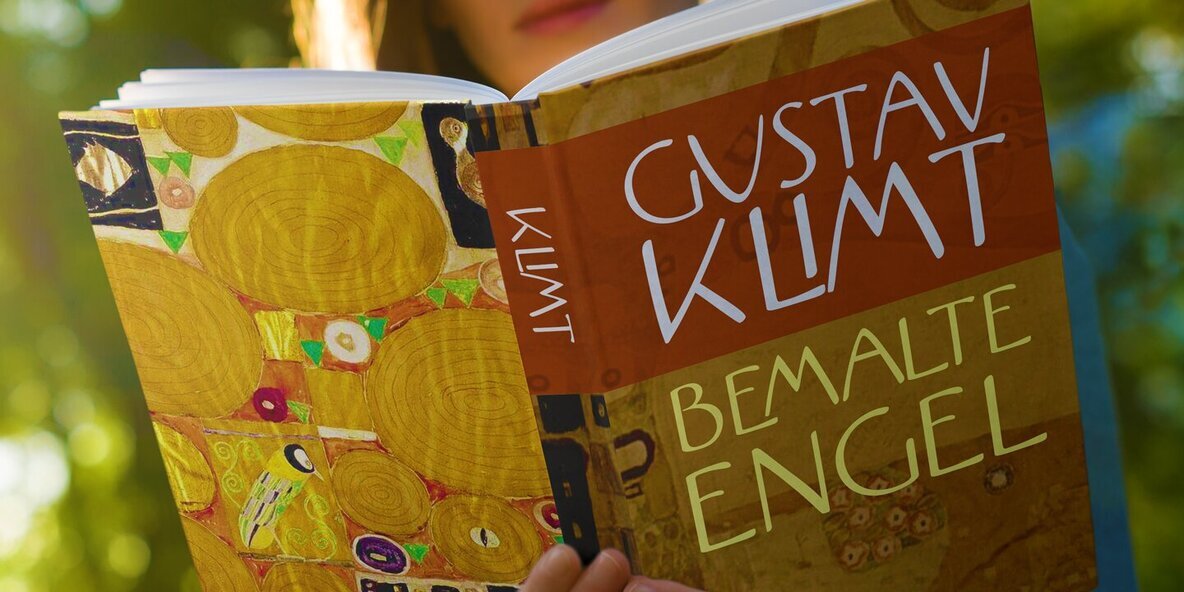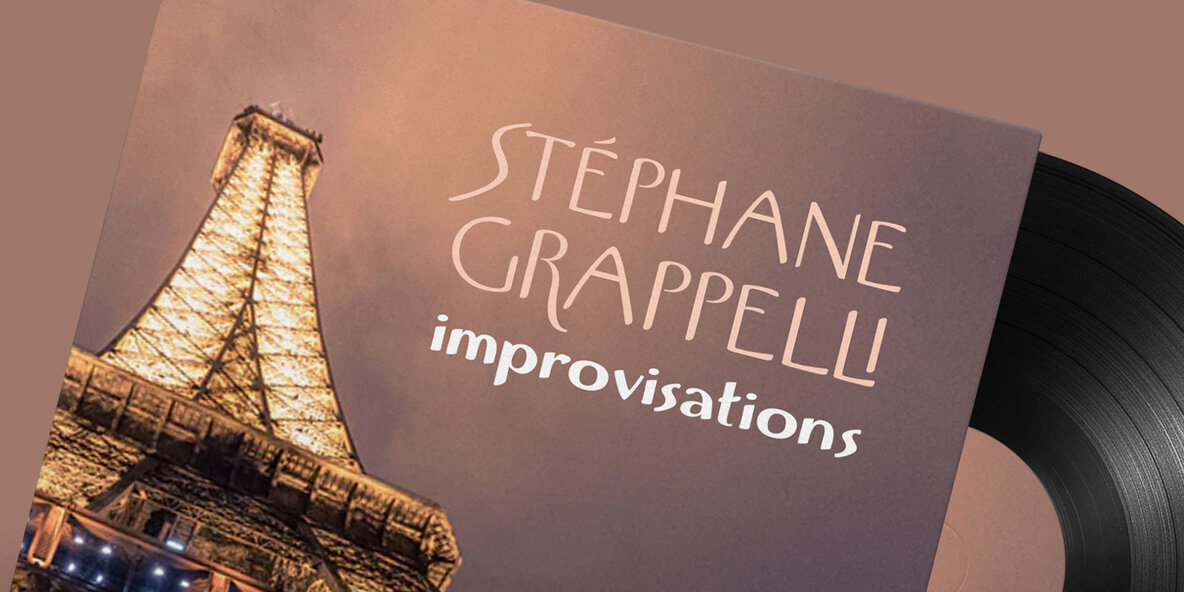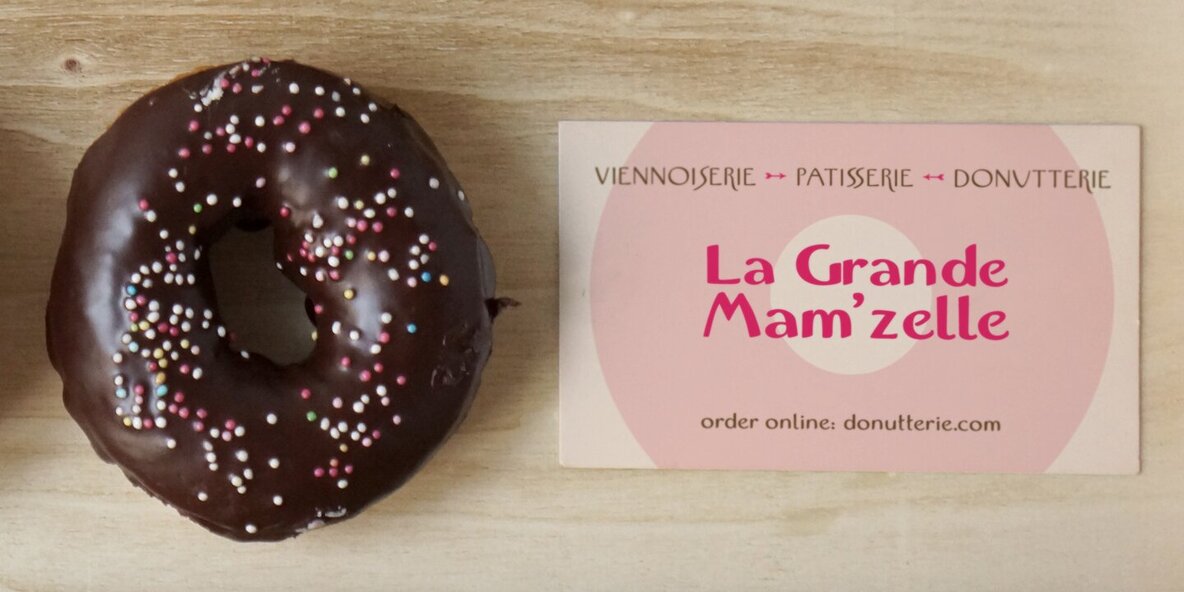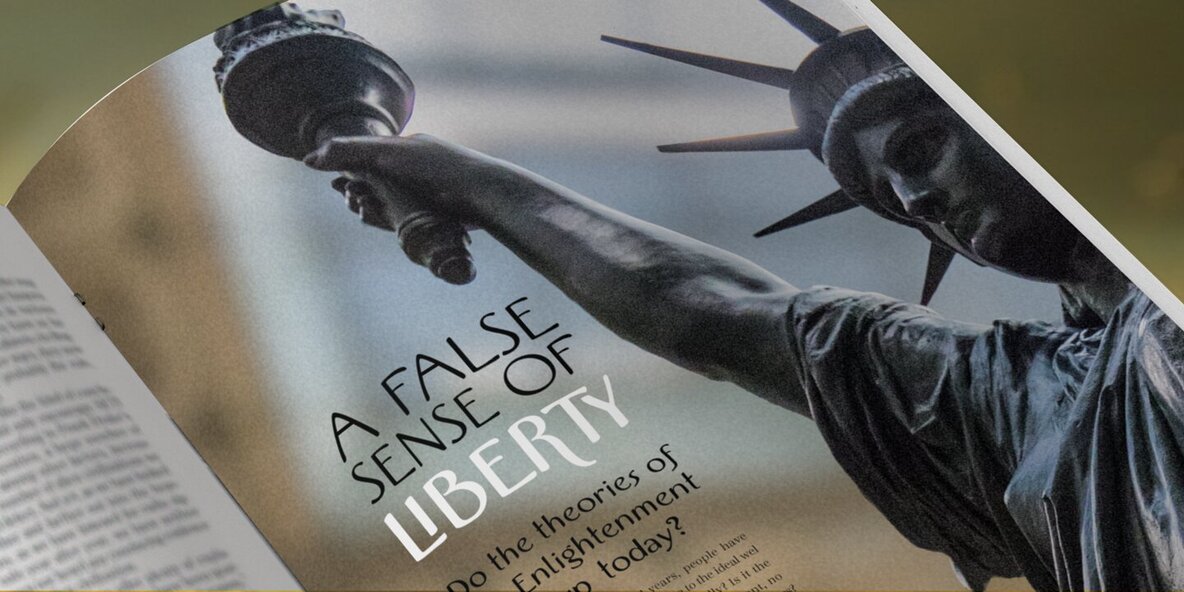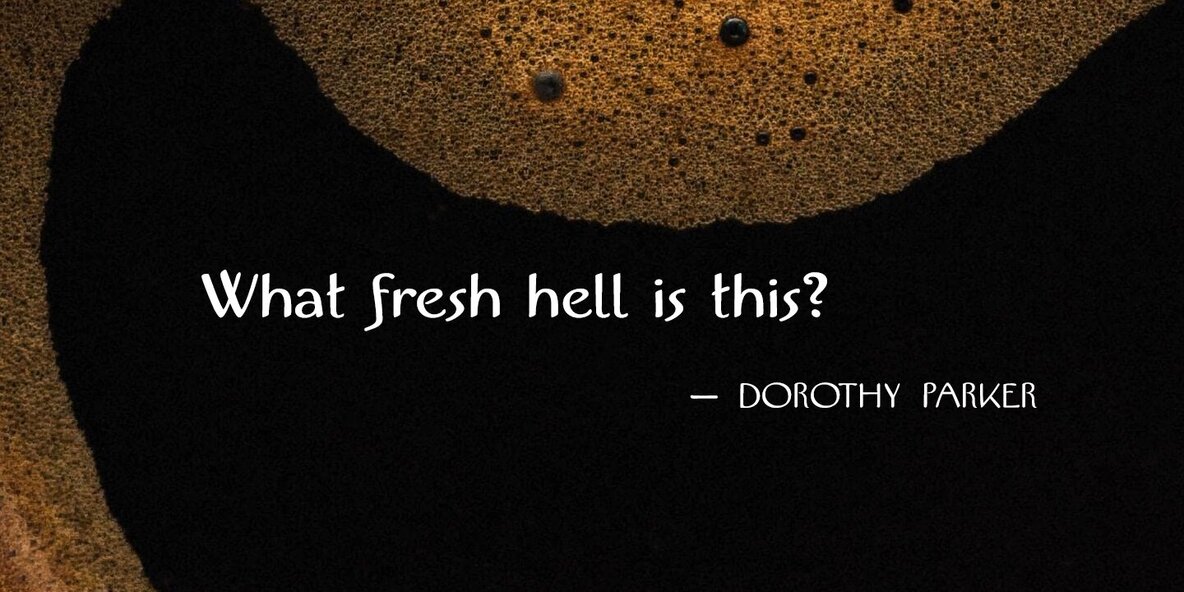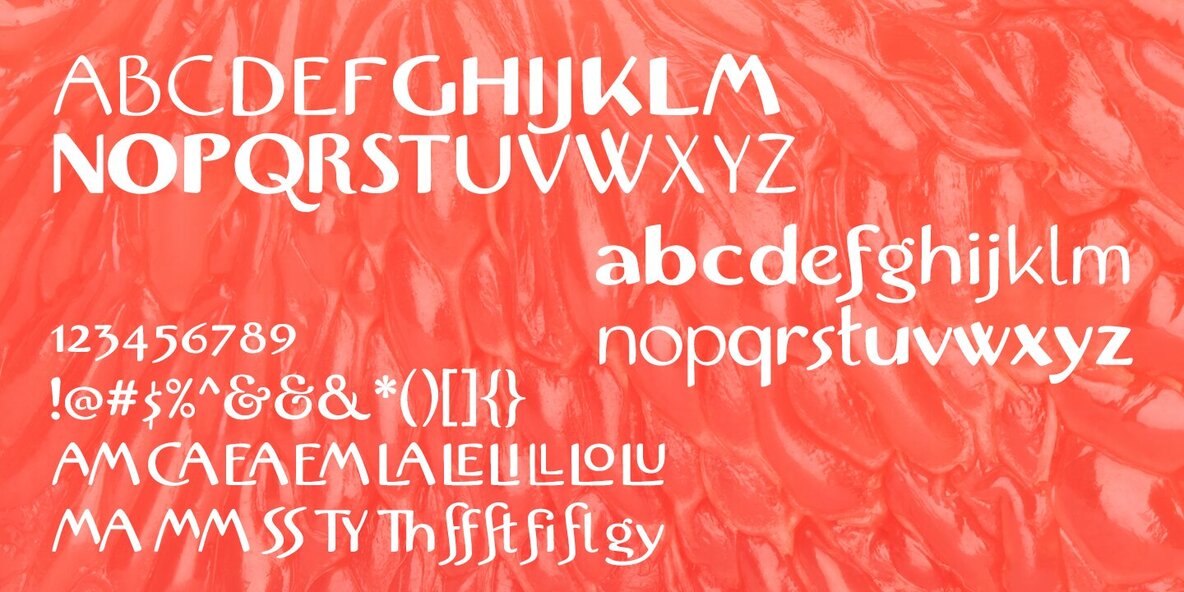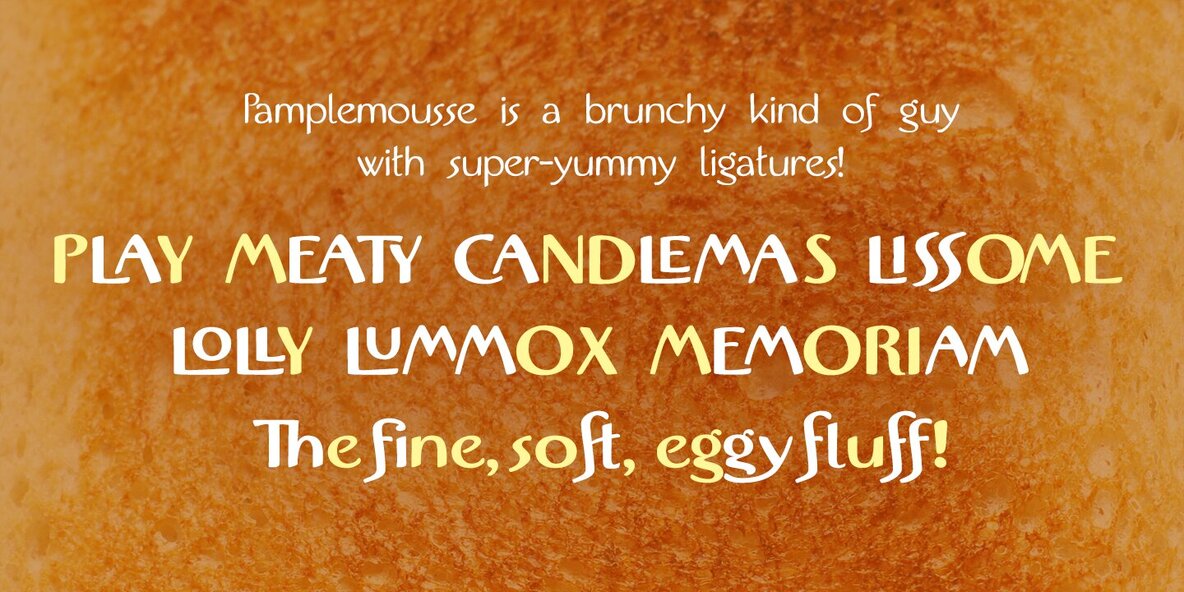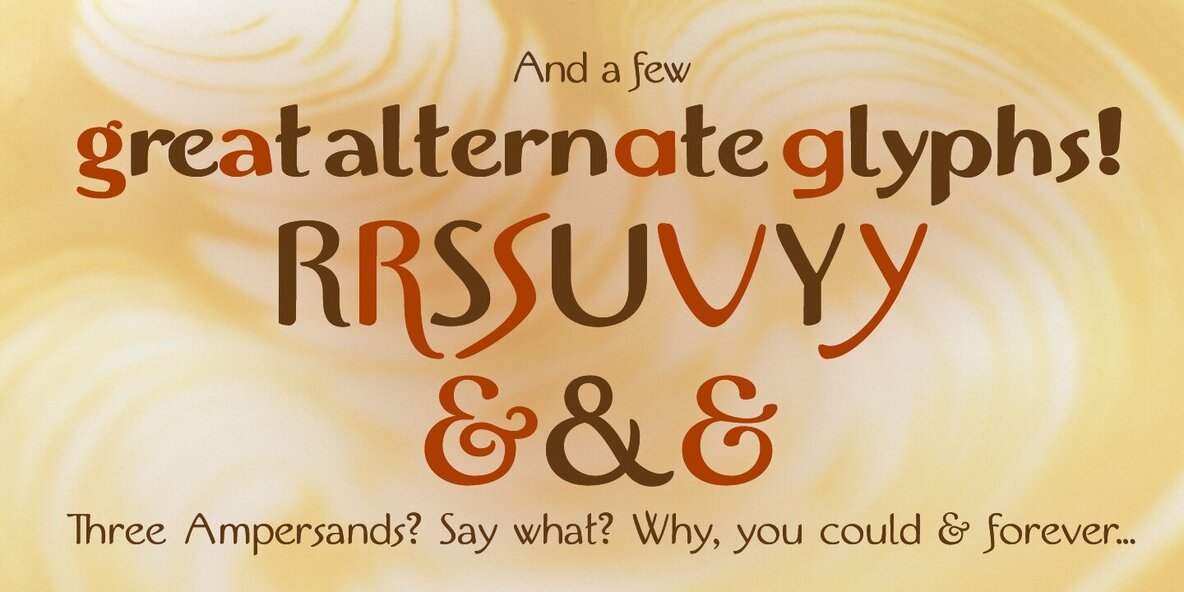
Pamplemousse Font
Meet Pamplemousse, a display font that's part fun, casual script and part elegant typeface! Pamplemousse is most decidedly a fellow who enjoys lazy Sunday mornings spent sipping mimosas or bloody marys over a plate of eggs benedict and the New York Times crossword puzzle. He enjoys dressing up for use in branding and headlines (he looks particularly dashing in all caps) and also sitting back and composing a casual note to a dear friend. Pamplemousse is mostly sweet and just a little sophisticated, and he likes being just as he is.
Pamplemousse started out as a typeface based on the lettering of Gustav Klimt in his poster for the first exhibition of the Vienna Secession movement (Art Nouveau). This drifted into an homage to Rea Irvin's iconic masthead typeface for the New Yorker magazine. Finally, with the addition of a lowercase (absent from Irvin's typeface), a significant revision away from both Klimt and Irvin into a more casual space, Pamplemousse was born!
Oh — why "pamplemousse?" "Pamplemousse" is French for grapefruit. What goes better in your Sunday gin and tonic than an aromatic slice of pamplemousse? Say it a few times. Preferably after a couple of those g & t's. You'll see how fun he can be...